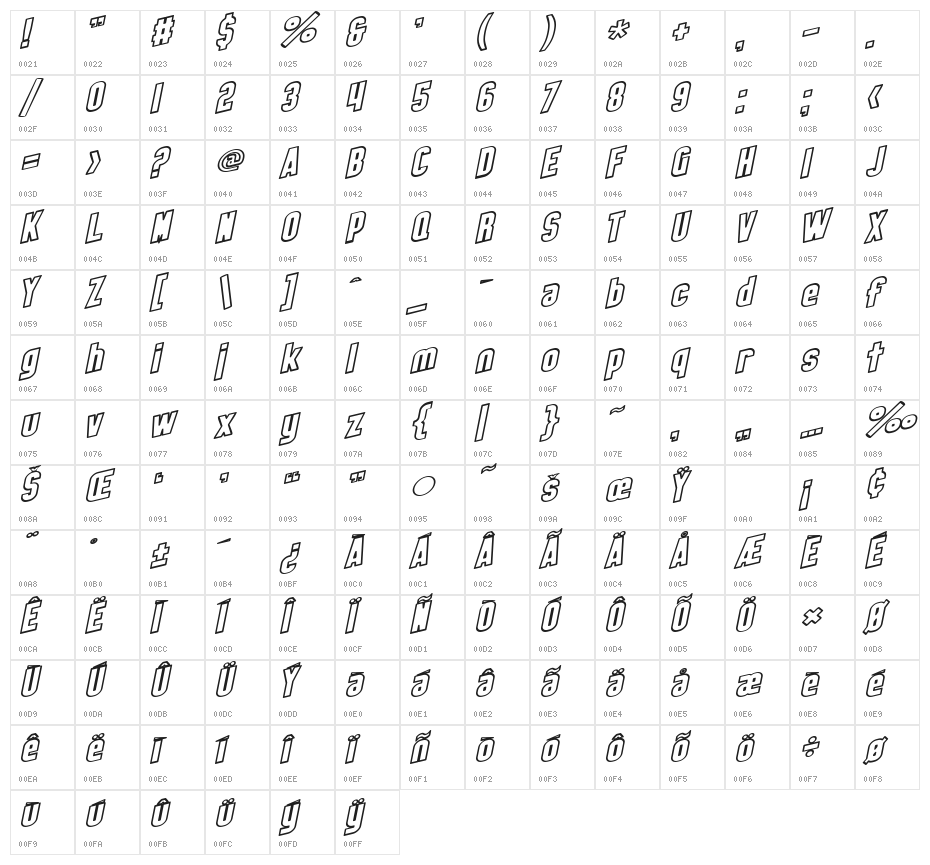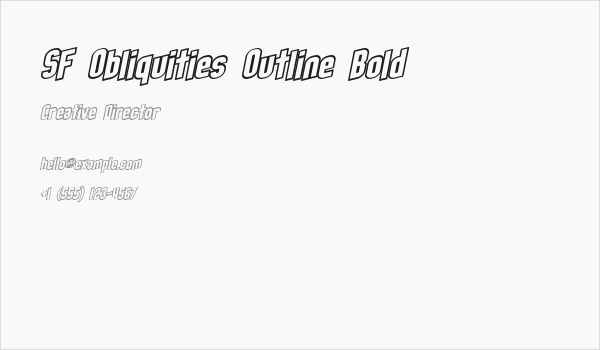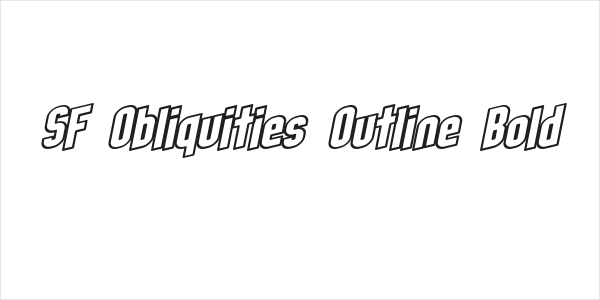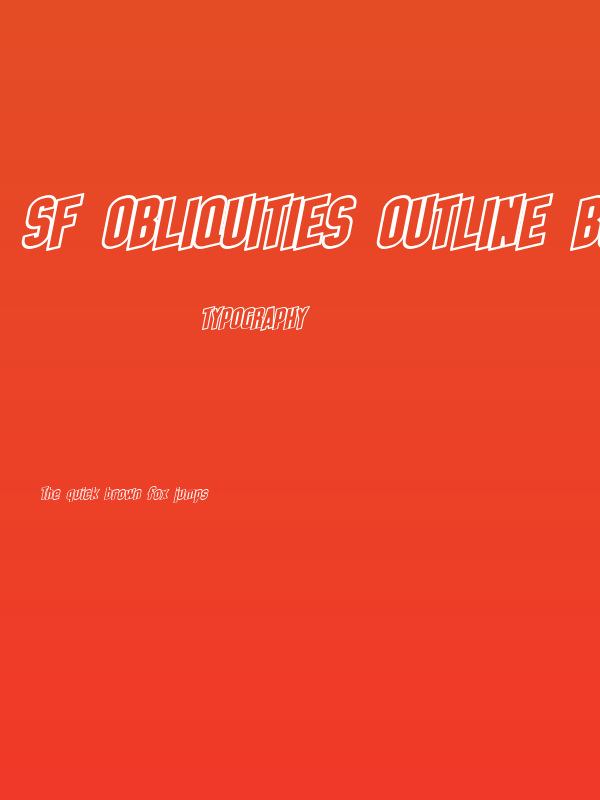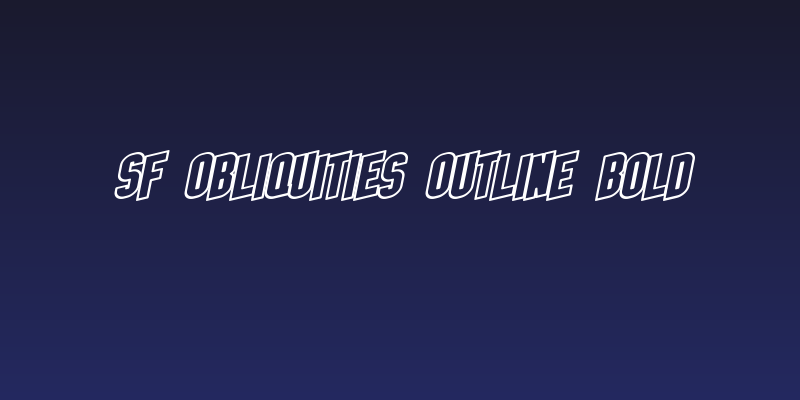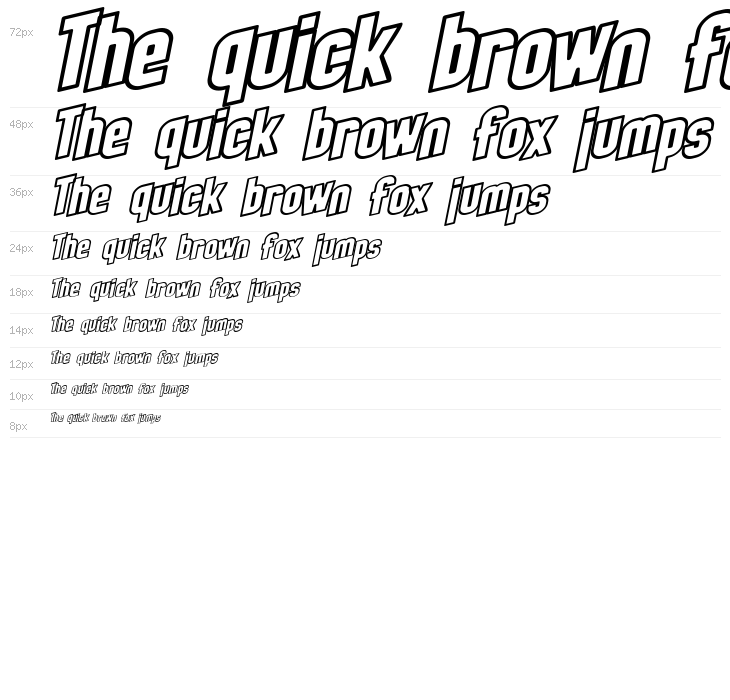
SF Obliquities Outline Bold Font
SF Obliquities Outline Bold Description
This font features a bold, dynamic style with a distinct outline that gives it a three-dimensional appearance. The characters are slanted, adding a sense of motion and energy. The uppercase and lowercase letters maintain a consistent width, while the numbers and special characters complement the overall design. The font's boldness and outline make it stand out, ideal for attention-grabbing headlines or titles. Its unique style is both modern and playful, suitable for creative projects that require a strong visual impact.
| Proposed Projects | Ideal for posters, logos, headlines, and any design requiring a bold statement. |